25 Blood-Curdling Scary Fonts!
With Halloween around the corner, it’s the perfect time to say “boo” to scary fonts!
These 25 scary fonts are not just for Halloween. You can use these fonts whenever you want to communicate a creepy feeling – think of horror movie posters, ghost storybook covers, print materials, T-shirts, and websites.
These blood-curdling typefaces may frighten even the bravest!
The 25 Scary Fonts To Scare The Pants Off Your Audience:
Banshee Font
Gloomy Font
Corsair Font
Cursed Font
Ghostly Font
Goshawk Font
Harrier Font
Haunted Font
Heiifire Font
Helldiver Font
Hornet Font
Magical Font
Masked Font
Menacing Font
Orion Font
Osprey Font
Phantom Font
Seahawk Font
Sinister Font
Spooky Font
Tomahawk Font
Tomcat Font
Triton Font
Viking Font
Wicked Font
Take A Look At These Halloween Fonts:
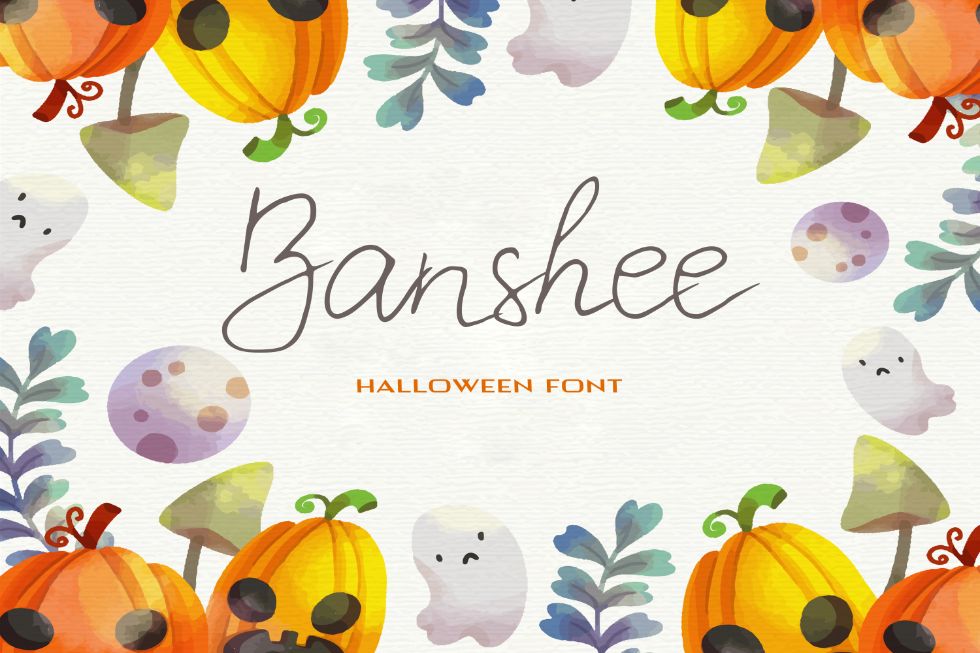
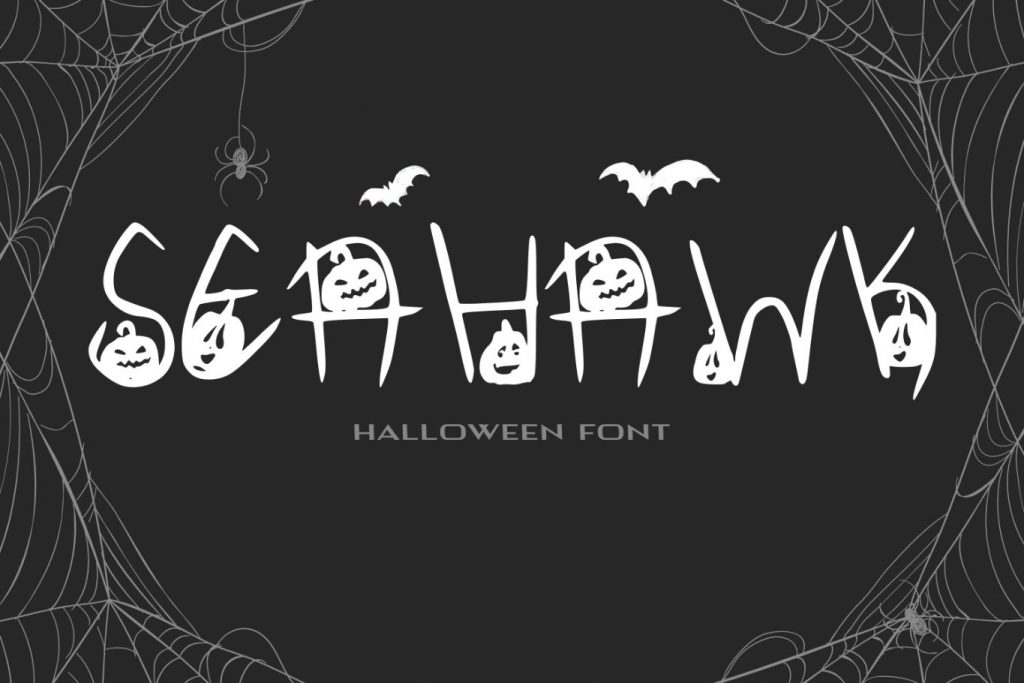
Few Font Presentations For You:
- There are 25 Halloween fonts inside the bundle.
- These fonts are perfect for websites, print projects, storybooks, movie covers, banners, social media posts, etc.